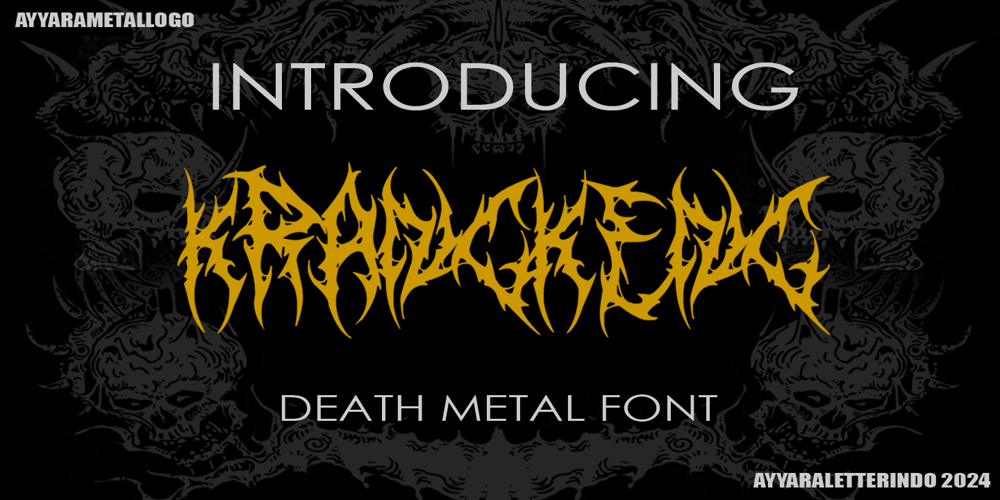
Krangkeng Font Family was designed by published by Ayyara Letterindo. Krangkeng contains 1 styles and family package options. Krangkeng is a death metal font that can be used for logos or branding and your metal band name. You can immediately make your band or brand logo name with the help of this unique black letter font. Combine it with black metal or death metal ornaments and make your cool metal design with easy!